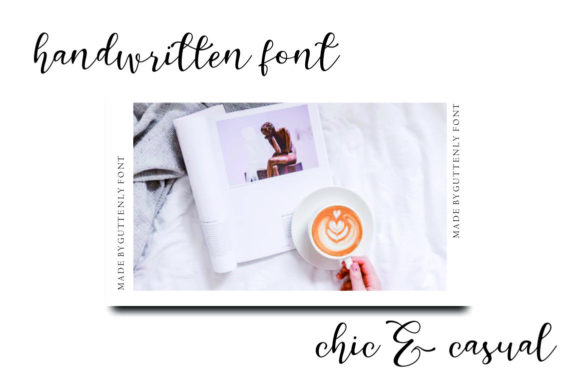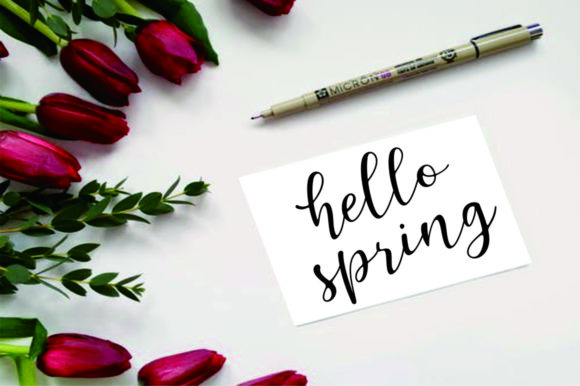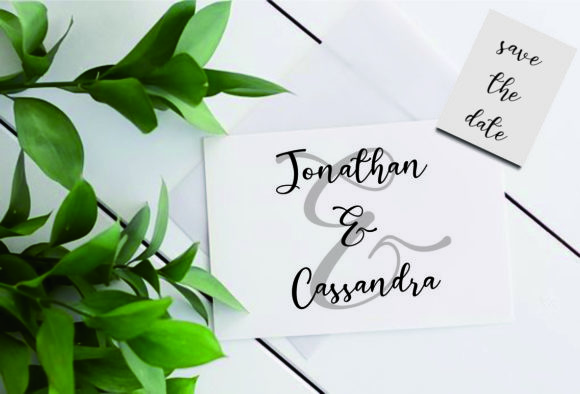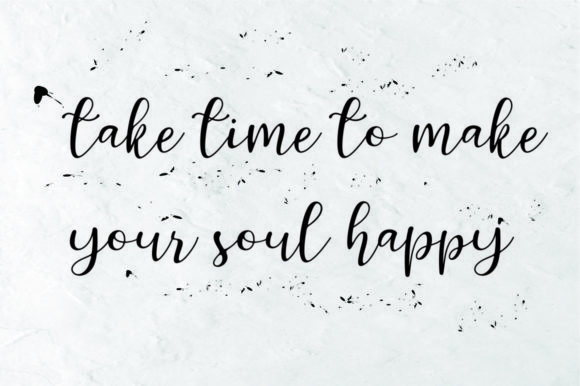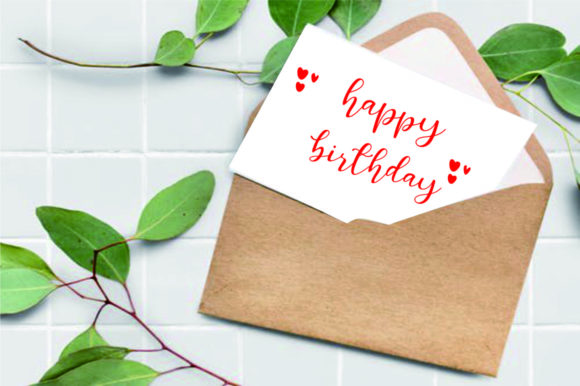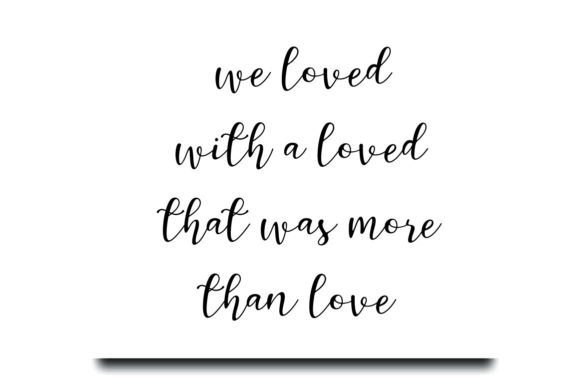
Guttenly Font
About Guttenly Font
The Guttenly is an elegant hand-lettered script font. It’s equipped with elegant characters and has a casual feel.
It can be used for business cards, quotes, magazines, little books, advertisements, magazines, mock-ups, and so on.